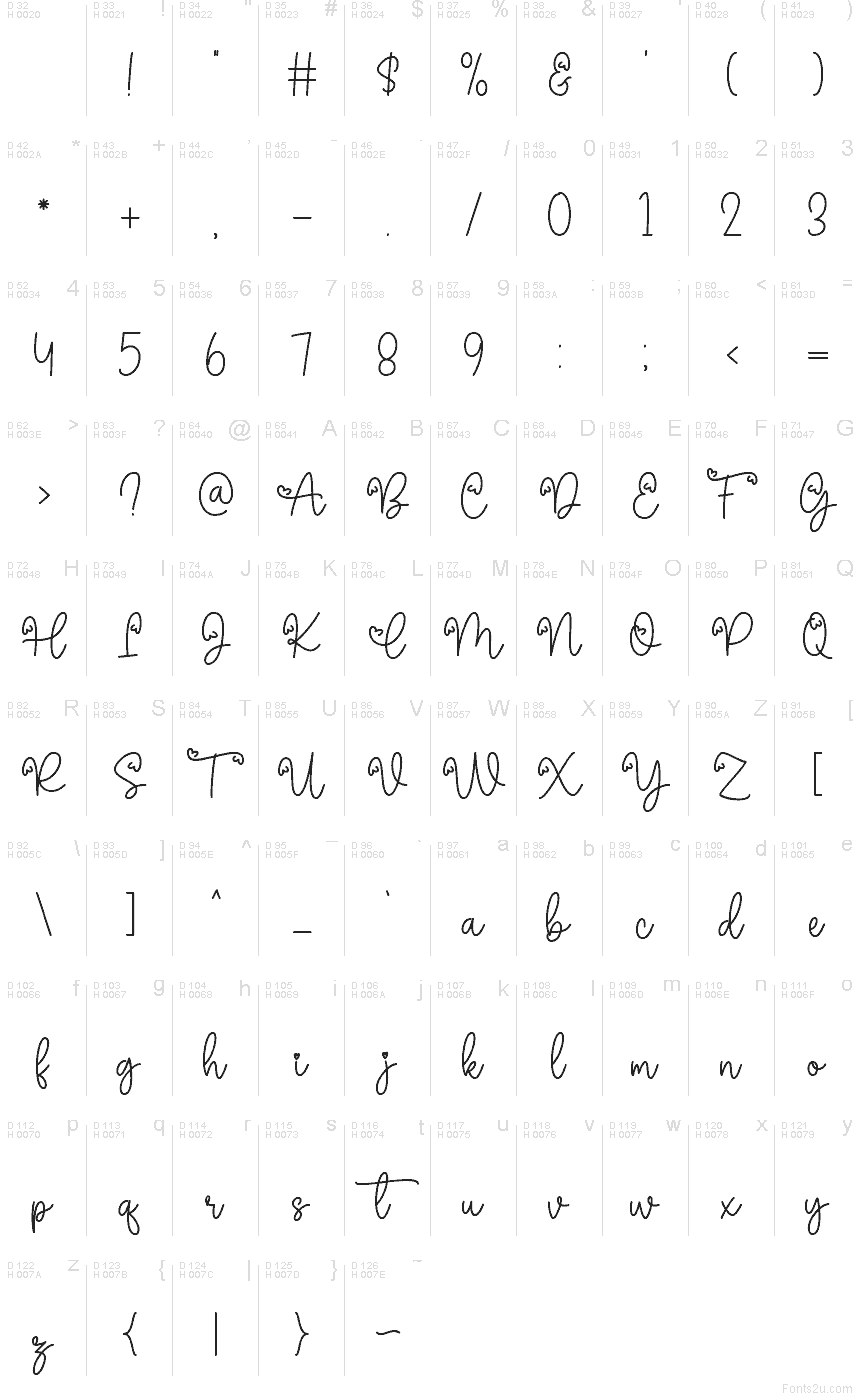
Liontine font by Fillo Graphic is a free holiday script font that wraps every word in a soft, handwritten glow. Long, looping strokes glide from letter to letter, while tiny heart details tuck into the curves, giving the typeface a flirty, Valentine-ready charm. The lines feel inky and effortless, like a note scribbled on the back of a love letter.
Using Liontine for Valentine cards, wedding invitations, save-the-dates, social media quotes, gift tags, and boutique logos instantly adds warmth and romance. This free font shines when used large, where its swirling connections and heart accents can really breathe; pair it with a clean sans serif for body text to keep your layouts sweet but readable.